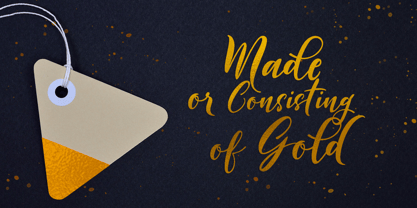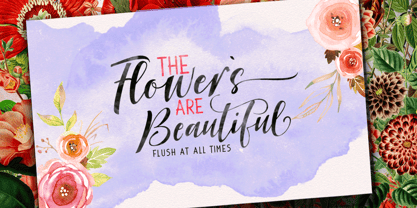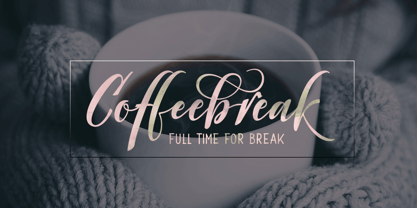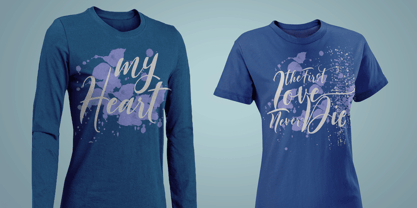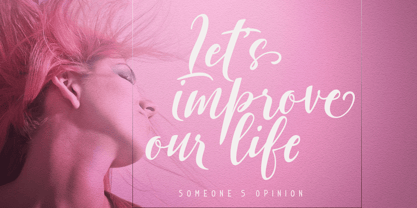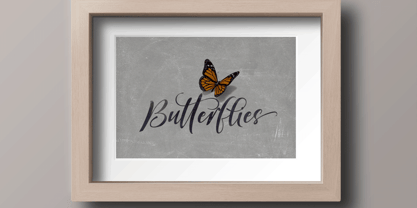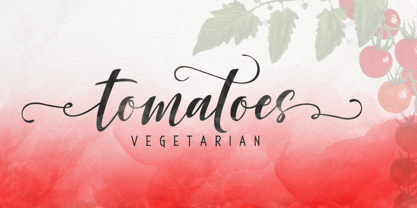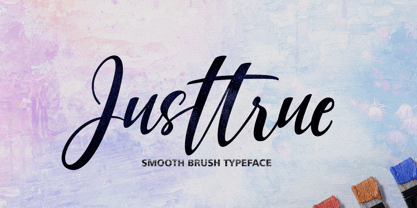
Justtrue
The Justtrue Font Family was designed by Ayi Teiry and published by eyetype. Justtrue contains 1 styles. More about this family
Justtrue – Elegant Calligraphy Script Justtrue is a graceful calligraphy script font that blends timeless elegance with a soft modern touch. Designed with natural flowing strokes, smooth curves, and beautiful swashes, this font delivers a romantic, luxurious, and authentic handwritten feel. With balanced thick–thin contrast inspired by traditional calligraphy, Justtrue creates a realistic pen-written impression while maintaining readability and sophistication. Each letter connects harmoniously, making it perfect for elegant and expressive typography projects.